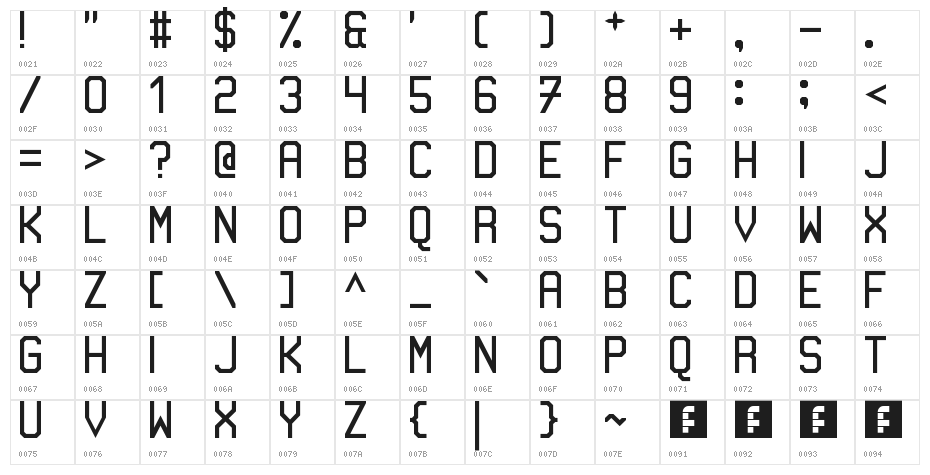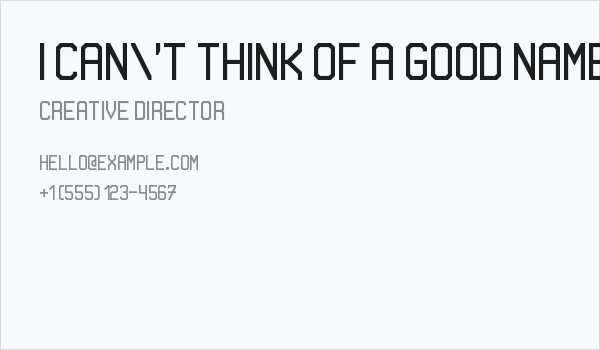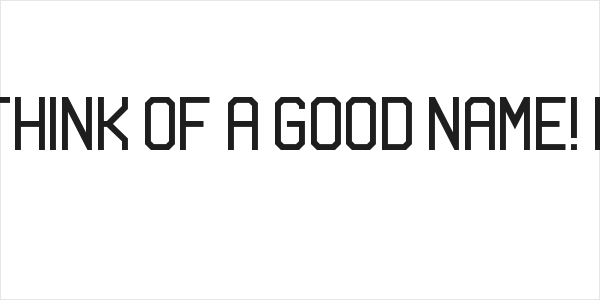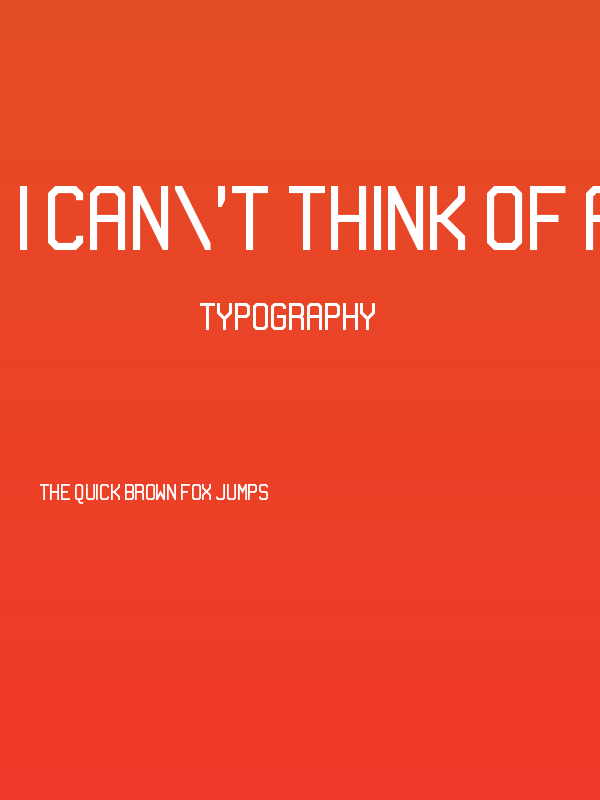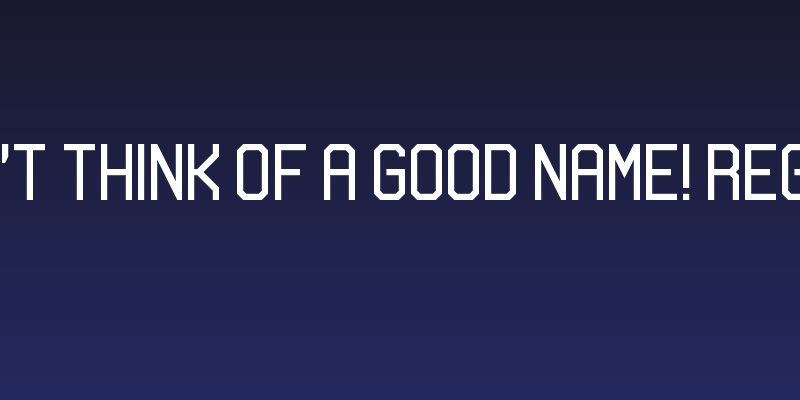
I can't think of a good name! Regular Font
I can't think of a good name! Regular Description
This font features a geometric and angular design, characterized by its sharp edges and clean lines. The uppercase and lowercase letters maintain a consistent height, creating a uniform appearance. The numerals and special characters follow the same angular style, ensuring cohesion across all glyphs. The font's structure is reminiscent of digital or technological themes, making it suitable for modern and futuristic designs. Its bold presence and distinct letterforms make it highly legible, even at smaller sizes. The consistent stroke width throughout the characters provides a balanced and stable look.
| Proposed Projects | Ideal for technology branding, digital interfaces, video game graphics, and futuristic posters. |